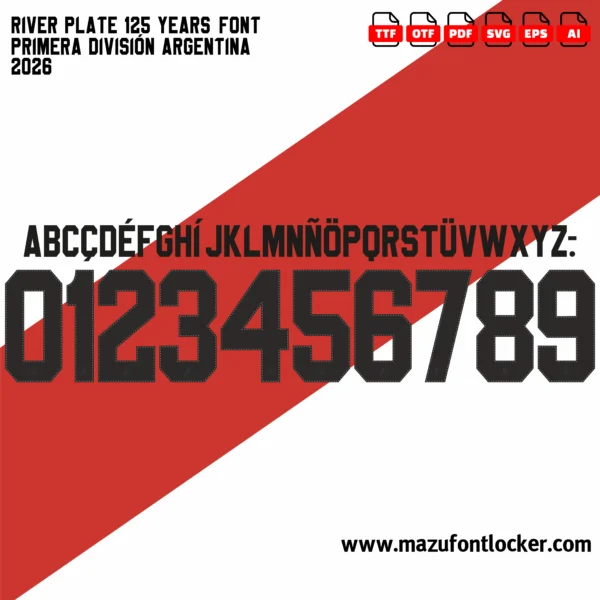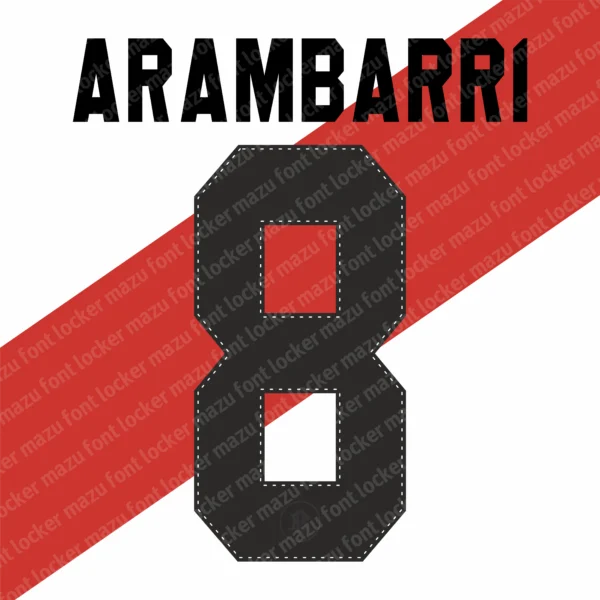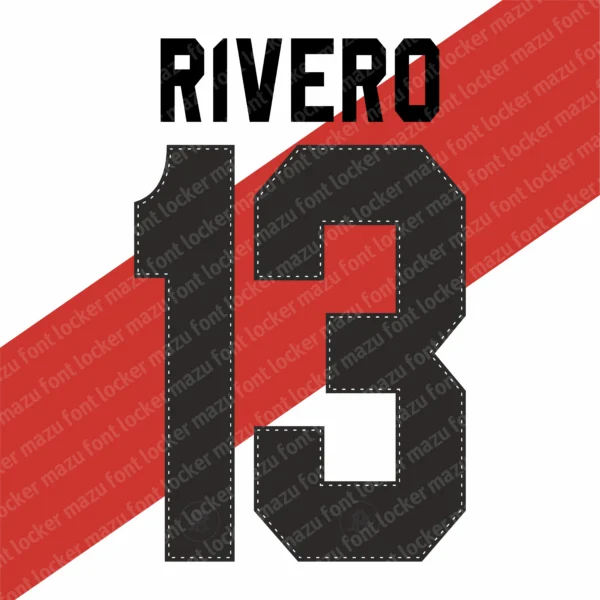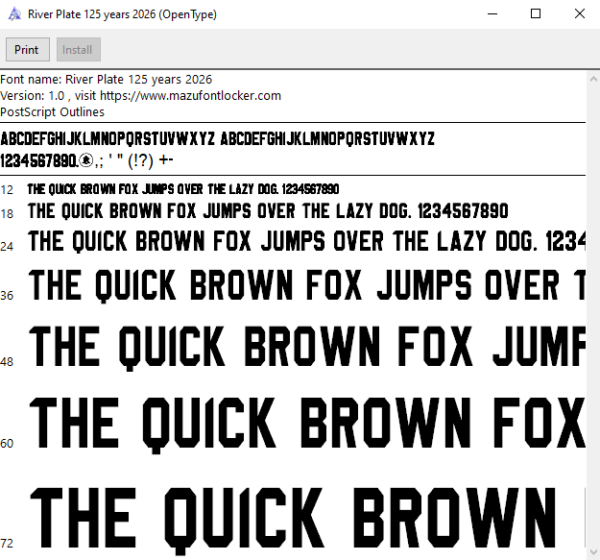
River Plate 125 Years 2026 Font Vector – Legendary Millonarios Masterpiece
This font captures the unstoppable, precision-forged lettering inspired by River Plate’s iconic red-and-white identity, proud Buenos Aires heritage, legendary Los Millonarios tradition, and fearless passionate football spirit — delivering premium authenticity and explosive match-day energy for professional jersey mockups, football graphics, sports branding, fan designs, and high-end creative projects.
River Plate 125 Years 2026 Font Vector – Stunning Red & White Typeface
The River Plate 125 Years 2026 Font Vector is a premium typeface that accurately recreates the distinctive match lettering associated with Club Atlético River Plate during its historic 125th anniversary celebrations in 2026. This high-quality vector font kit captures the bold, clean, and instantly recognizable typography that perfectly complements the club’s iconic white jersey with the classic red sash.
Designed for professional designers, football enthusiasts, jersey collectors, and passionate River Plate supporters, the River Plate 125 Years 2026 Font Vector delivers exceptional authenticity for creating realistic jersey mockups, football merchandise, social media graphics, match posters, squad designs, and custom fan artwork. Every character has been carefully recreated to reflect the powerful and precise visual style of one of Argentina’s most traditional and passionate football clubs.
Why Choose River Plate 125 Years 2026 Font Vector
This font stands out thanks to its precise vector construction and authentic club-inspired styling. Every letter and numeral has been meticulously recreated to match the distinctive football lettering aesthetic associated with River Plate during the 2026 season and its special 125th anniversary campaign.
Whether you’re producing professional football kit templates, custom jersey concepts, or eye-catching football content, the River Plate 125 Years 2026 Font Vector delivers a genuine match-ready appearance inspired by the identity of Los Millonarios.
The lettering featured in the River Plate 125 Years 2026 Font Vector combines clean geometric lines with bold modern proportions. The result is a premium and highly readable typeface that reflects River Plate’s proud football heritage, iconic red and white colors, Buenos Aires identity, and passionate global fanbase.
- Complete uppercase A–Z alphabet and numbers 0–9 in authentic River Plate 125 Years 2026 inspired style
- Special River Plate badge glyph – Press the “:” (Colon) key to insert the club badge
The River Plate 125 Years 2026 Font Vector is inspired by the distinctive football typography and visual identity associated with this landmark anniversary year, making it an excellent choice for designers creating custom jersey concepts, football posters, squad graphics, matchday artwork, and fan-made projects. For official club information, news, team updates, fixtures, and match information, visit the official River Plate website.
The River Plate 125 Years 2026 Font Vector is an independently designed typeface package inspired by the official shirt lettering and visual identity associated with Club Atlético River Plate during its 125th anniversary celebrations in 2026. It has been carefully recreated for football enthusiasts, graphic designers, collectors, jersey creators, and fans producing custom football concepts, digital artwork, and fan-made projects. Please note that this is a fan-made design resource and is not an official product of River Plate, the Liga Profesional, CONMEBOL, or any associated organization.